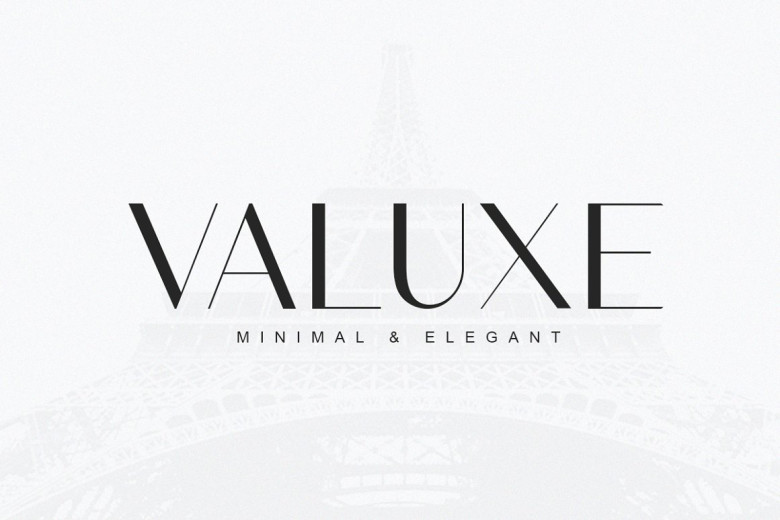
Valuxe Font
Valuxe modern is an unassuming sans serif font designed to fit in seamlessly with other standard script fonts such as Arial or any others that feature elegant designs.
Valuxe Sans Serif Font